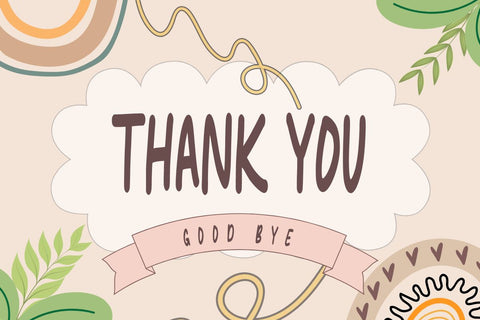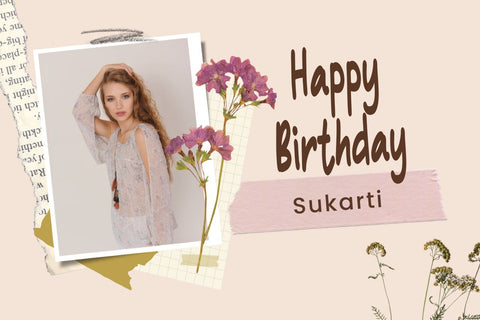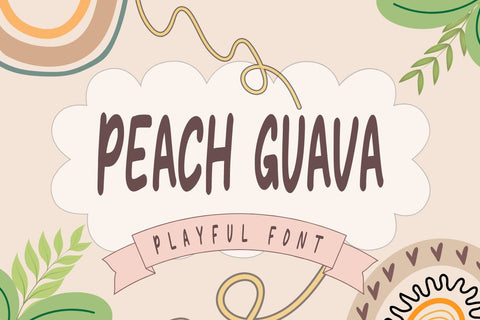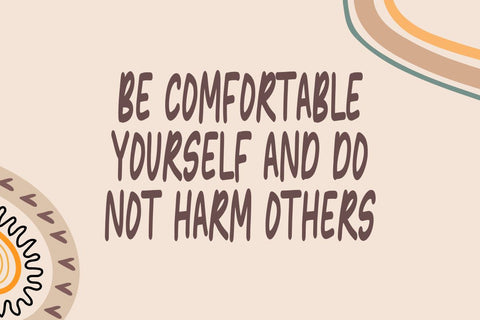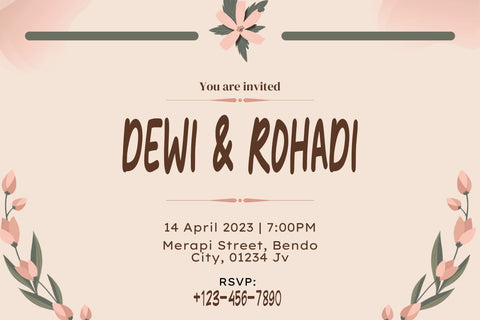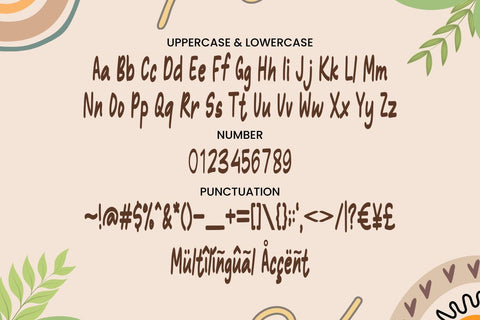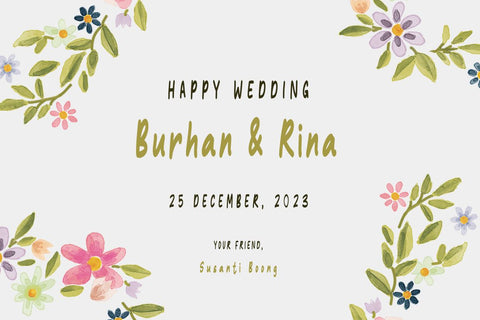
Peach Guava - Playful Font
**Peach Guava** is a Playful Display font that will make your designs look unique and fun. It's perfect for labels, quotes, posters, DIY projects, branding, packaging, greeting cards, websites, photography overlays, signs, window art, scrapbooking, tags and so much more!